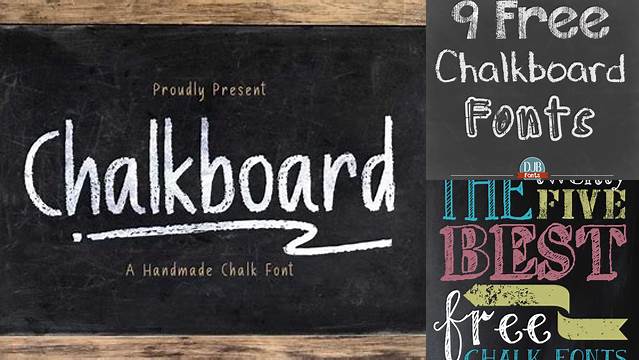
Free Chalk Fonts: Download Now!
Hey guys! Are you looking to add a touch of hand-drawn charm to your designs? Well, you've come to the right place! Chalk fonts are super popular for their whimsical and authentic feel, perfect for everything from posters and invitations to branding and website design. In this article, we're diving deep into the world of free chalk fonts, exploring where to find them, how to use them, and everything in between. So, grab a virtual piece of chalk and let's get started!
1. Best Websites to Download Free Chalk Fonts
When searching for free chalk fonts, knowing where to look can save you a ton of time and effort. Several websites specialize in offering high-quality fonts for personal and commercial use. Let's explore some of the best options out there. DaFont is a treasure trove for font lovers, featuring a vast collection of free chalk fonts and other typeface styles. The website's user-friendly interface allows you to easily browse and filter fonts based on various criteria, including style, license, and popularity. You can preview the font with your own text, making it simple to find the perfect match for your project. Many fonts on DaFont are free for personal use, but it's essential to check the license agreement before using them for commercial purposes. FontSpace is another excellent resource for discovering free chalk fonts. With a wide array of options available, you're sure to find a font that suits your creative needs. The site also features collections and categories, making it easier to navigate the extensive library. Like DaFont, FontSpace offers a mix of fonts for personal and commercial use, so always verify the licensing terms. Creative Market offers a blend of free and premium fonts, including a selection of stunning chalk-style fonts. While not everything is free, their weekly free goods section often includes high-quality fonts that you can download at no cost. This is a great way to expand your font library with professional-grade options. Google Fonts is a go-to resource for web designers and developers, offering a library of open-source fonts that are free for both personal and commercial use. While the selection of chalk fonts may be more limited compared to other sites, the fonts available are high-quality and easy to integrate into your web projects. The fonts are optimized for web use, ensuring fast loading times and consistent rendering across different browsers and devices. 1001 Fonts is another reliable source for free chalk fonts, with a diverse range of styles and designs. The site's straightforward layout makes it easy to search and preview fonts. Be sure to check the licensing details for each font, as they may vary. By exploring these websites, you'll be well-equipped to find the perfect free chalk font for your next project. Remember to always respect the font licenses and give credit to the designers when required.
3. Chalk Fonts for Personal Use
For personal projects, free chalk fonts can add a delightful touch of creativity and personality. Whether you're designing invitations, crafting handmade cards, or sprucing up your personal blog, a well-chosen chalk font can make all the difference. When using chalk fonts for personal use, you have a lot of freedom to experiment and have fun. You can use them to create eye-catching headings for your blog posts, design unique social media graphics, or even personalize gifts for friends and family. The hand-drawn aesthetic of chalk fonts adds a personal touch that can't be replicated with more formal typefaces. One popular use of chalk fonts for personal projects is in the creation of party invitations. A chalk font can make your invitations feel more casual and inviting, perfect for backyard barbecues, birthday parties, or casual get-togethers. You can pair a chalk font with rustic design elements, such as kraft paper and twine, to create a cohesive and charming look. Handmade cards are another fantastic application for free chalk fonts. Whether you're sending a thank-you note, a birthday greeting, or a message of support, a chalk font can add a personal and heartfelt touch. Consider using a chalk font for the main message and pairing it with hand-drawn illustrations or embellishments. If you have a personal blog, using a chalk font for your headings and subheadings can help create a unique and engaging visual identity. A chalk font can make your blog feel more approachable and friendly, encouraging visitors to stick around and read your content. Just be sure to use the font sparingly and pair it with a more legible body font to ensure readability. Creating personalized gifts is another wonderful way to incorporate chalk fonts into your personal projects. You can use a chalk font to create custom mugs, tote bags, or even wall art. The hand-drawn look of a chalk font adds a special touch that makes your gifts feel extra thoughtful and unique. Remember, when using free chalk fonts for personal use, you typically have a lot of flexibility. However, it's always a good idea to check the font's license agreement to ensure you're complying with the terms. Most fonts that are free for personal use will clearly state this in the license. By exploring the many creative ways you can use chalk fonts in your personal projects, you can add a touch of whimsy and charm to your everyday life.
4. Commercial Use of Free Chalk Fonts
Using free chalk fonts for commercial projects can be a fantastic way to add a unique and eye-catching element to your designs, but it's crucial to understand the licensing implications. Commercial use means using the font in any project that is intended to generate profit, such as logos, marketing materials, merchandise, or websites for businesses. Before incorporating a free chalk font into a commercial project, you must carefully review the font's license agreement. As mentioned earlier, commercial licenses often come with specific terms and restrictions, so it's essential to ensure you're in compliance. Some free chalk fonts may be offered under a commercial license at no cost, while others may require you to purchase a license or give attribution to the font designer. It's also important to check whether the license allows for modifications to the font. If you need to make changes to the font to fit your design, ensure that the license permits this. Some licenses may restrict modifications or require you to obtain permission from the designer. When using free chalk fonts for branding purposes, such as in a logo or brand identity, you need to be particularly careful. The font will become a visual representation of your brand, so it's crucial to ensure you have the right to use it commercially. Consider whether the font aligns with your brand's personality and target audience. A chalk font can be a great choice for brands that want to convey a sense of creativity, authenticity, or playfulness. Marketing materials are another common application for free chalk fonts in commercial projects. You can use a chalk font in posters, flyers, brochures, and social media graphics to add a hand-drawn touch. Just be mindful of readability, especially in smaller text sizes. Choose a chalk font that is clear and easy to read, and pair it with a more legible body font for longer blocks of text. If you're selling merchandise, such as t-shirts, mugs, or tote bags, using a chalk font can create a unique and appealing design. However, you'll need to ensure that the font license allows for use in merchandise. Some licenses may have restrictions on the number of items you can produce or the types of products you can use the font on. Using free chalk fonts on a website can add personality and charm to your online presence. However, consider the font's loading time and compatibility with different browsers and devices. Opt for web-optimized fonts and test your website on various platforms to ensure a consistent user experience. By carefully considering the licensing terms and the specific needs of your commercial project, you can confidently use free chalk fonts to create impactful designs that resonate with your audience.
5. Chalk Fonts for Logos
When it comes to logo design, the font you choose plays a crucial role in conveying your brand's personality and message. Chalk fonts can be an excellent option for logos that aim to project a sense of creativity, authenticity, or playfulness. However, using a chalk font effectively in a logo requires careful consideration and attention to detail. One of the key advantages of using a chalk font in a logo is its unique and hand-drawn aesthetic. This can help your logo stand out from the crowd and create a memorable impression. A chalk font can evoke a sense of nostalgia, craftsmanship, and personal touch, making it a great choice for brands that want to connect with their audience on an emotional level. However, not all chalk fonts are suitable for logos. Some chalk fonts may be too decorative or difficult to read, especially in smaller sizes. It's essential to choose a chalk font that is legible, versatile, and scalable. Look for fonts that have clean lines and a clear structure, even with their hand-drawn style. Consider the overall style and personality of your brand when selecting a chalk font for your logo. A chalk font might be a great fit for a coffee shop, a bakery, or a creative agency, but it may not be the best choice for a law firm or a financial institution. Think about the message you want to communicate and choose a font that aligns with your brand values. When designing a logo with a chalk font, it's important to pay attention to kerning and spacing. Kerning refers to the adjustment of the space between individual letters, while spacing refers to the overall spacing between words and lines. Proper kerning and spacing can significantly improve the readability and visual appeal of your logo. Experiment with different sizes and weights of the chalk font to see how it looks in various contexts. Your logo should be legible and impactful whether it's displayed on a business card, a website, or a large billboard. Consider using a slightly bolder weight for your chalk font to ensure it stands out, especially in smaller sizes. Pair your chalk font with other design elements, such as illustrations, icons, or colors, to create a cohesive and visually appealing logo. The font should complement the other elements of your logo, not compete with them. Think about how the chalk font will work with your brand's color palette and visual identity. Before finalizing your logo design, get feedback from others. Show your logo to potential customers, colleagues, or design professionals and ask for their opinions. Constructive feedback can help you identify any potential issues and make improvements to your logo. By carefully considering these factors, you can effectively use free chalk fonts in your logos to create a unique and memorable brand identity.
6. Chalk Fonts for Websites
Incorporating free chalk fonts into your website design can add a touch of personality and visual interest, but it's crucial to do so strategically. While chalk fonts can create a unique and engaging user experience, they're not always the best choice for every website element. When using chalk fonts on your website, readability should be your top priority. Chalk fonts often have a more textured and hand-drawn appearance, which can make them harder to read than cleaner, more traditional fonts. Consider using chalk fonts for headings, subheadings, and short bursts of text, rather than for long paragraphs of body copy. For body text, it's best to stick with a more legible font that is easy on the eyes. Choose a chalk font that is web-optimized. Web-optimized fonts are designed to load quickly and render consistently across different browsers and devices. This is essential for ensuring a positive user experience on your website. Many font websites offer web font versions of their fonts, which are specifically designed for online use. Consider the loading time of the chalk font. Some chalk fonts can be quite large in file size, which can slow down your website's loading speed. This can negatively impact your website's search engine ranking and user experience. Choose a lightweight chalk font or use a font optimization tool to reduce the file size. Ensure that the chalk font is compatible with your website's design and branding. The font should complement your website's overall aesthetic and reinforce your brand's message. Think about the colors, images, and other design elements on your website and choose a chalk font that harmonizes with them. Test the chalk font on different browsers and devices to ensure that it renders correctly. What looks great on your desktop computer might not look as good on a mobile device. Use browser testing tools or real devices to preview your website on different platforms. Use chalk fonts sparingly and strategically. Overusing chalk fonts can make your website look cluttered and unprofessional. Use them to highlight key elements, such as headings or calls to action, rather than for every piece of text on your site. Pair your chalk font with other fonts to create visual contrast and hierarchy. Using a combination of fonts can add interest to your website design and make it easier for visitors to scan and understand your content. Experiment with different font pairings to find a combination that works well together. Consider using CSS to customize the appearance of your chalk font. CSS allows you to adjust the font size, color, spacing, and other properties, giving you greater control over how the font looks on your website. By following these guidelines, you can effectively use free chalk fonts on your website to create a unique and engaging user experience without sacrificing readability or performance.
7. Chalk Fonts for Social Media Graphics
In the fast-paced world of social media, grabbing attention is key. Free chalk fonts can be a fantastic tool for creating eye-catching graphics that stand out in a crowded feed. Their hand-drawn, whimsical style can add a personal touch to your posts, making them more engaging and shareable. When using chalk fonts for social media graphics, consider the platform you're designing for. Each platform has its own optimal image sizes and aspect ratios, so it's important to tailor your graphics accordingly. For example, Instagram posts typically use a square format, while Facebook cover photos require a wider aspect ratio. Make sure your chalk font is legible and readable at the size it will be displayed on the platform. Social media graphics are often viewed on small screens, so it's crucial to choose a font that is clear and easy to read, even at a smaller size. Avoid overly decorative or intricate chalk fonts that might become illegible when scaled down. Use chalk fonts to create visually appealing headlines and captions. A well-chosen chalk font can help draw attention to your message and make your text more engaging. Experiment with different font sizes, weights, and styles to find the perfect combination for your graphic. Pair your chalk font with complementary design elements, such as illustrations, icons, or photos. Visual consistency is important for branding, so make sure the elements you choose align with your overall aesthetic and message. Consider the color palette of your social media graphics. Colors can evoke emotions and create a visual hierarchy, so it's important to choose a color scheme that complements your chalk font and overall design. Use contrasting colors to make your text stand out and ensure readability. Add a background or texture to your social media graphics to create depth and visual interest. A chalkboard texture can be a great way to reinforce the chalk font theme, but you can also experiment with other textures and patterns to create a unique look. Use chalk fonts to create a consistent visual identity across your social media profiles. Consistency helps build brand recognition and makes your content more easily identifiable. Choose a few chalk fonts that you like and use them consistently in your social media graphics. Experiment with different effects and styles to enhance the look of your chalk font. For example, you can add a drop shadow, glow, or outline to make your text pop. You can also try using different blending modes or filters to create unique effects. Test your social media graphics on different devices and platforms to ensure they look good across the board. What looks great on your computer screen might not look as good on a mobile device. By following these tips, you can effectively use free chalk fonts to create stunning social media graphics that capture attention and engage your audience.
8. Chalk Fonts for Posters
Designing a poster that grabs attention requires a careful balance of visual elements, and the font you choose plays a crucial role. Free chalk fonts can be an excellent choice for posters that aim to convey a sense of creativity, informality, or a handmade aesthetic. However, using chalk fonts effectively in poster design requires careful consideration of readability, scale, and overall visual impact. One of the key advantages of using chalk fonts for posters is their ability to create a unique and eye-catching design. The hand-drawn, textured look of chalk fonts can add a personal touch to your poster, making it stand out from the crowd. This can be particularly effective for posters advertising events, workshops, or products that emphasize creativity or craftsmanship. Readability is paramount in poster design, so choose a chalk font that is clear and easy to read, even from a distance. Avoid overly decorative or intricate chalk fonts that might become illegible when scaled up. Opt for fonts with clean lines and a clear structure, while still maintaining the charm of a chalk-like appearance. Consider the scale of your poster and the size of the text. The font size should be large enough to be easily read from a distance, but not so large that it overwhelms the other design elements. Experiment with different font sizes and weights to find the optimal balance for your poster. Use chalk fonts strategically to create a visual hierarchy in your poster design. Use a larger, bolder chalk font for the main headline or title to draw attention, and use smaller, simpler fonts for supporting text and details. This helps guide the viewer's eye and ensures that the most important information is easily visible. Choose a chalk font that complements the overall style and message of your poster. Think about the event or product you're advertising and choose a font that aligns with its tone and personality. A playful chalk font might be a good choice for a children's event, while a more sophisticated chalk font might be better suited for a concert or art exhibition. Use color effectively to enhance the impact of your chalk font. Contrasting colors can make your text stand out and create visual interest. Consider using a light-colored chalk font on a dark background, or vice versa, to maximize readability. Add visual elements, such as illustrations, photos, or textures, to complement your chalk font and create a cohesive design. These elements should enhance the message of your poster without distracting from the text. Test your poster design by printing it out at different sizes and viewing it from a distance. This will help you identify any potential readability issues or design flaws before you finalize your poster. By following these guidelines, you can effectively use free chalk fonts in your poster designs to create eye-catching and informative visuals that capture attention and convey your message.
9. Chalk Fonts for Invitations
Creating invitations that reflect the tone and style of your event is crucial, and the font you choose plays a significant role. Free chalk fonts can add a touch of whimsy, informality, and handmade charm to your invitations, making them perfect for a variety of occasions. Whether you're planning a casual get-together, a rustic wedding, or a fun-filled birthday party, a chalk font can help set the right mood. When using chalk fonts for invitations, consider the overall aesthetic you're aiming for. Chalk fonts often evoke a sense of nostalgia, creativity, and personal touch, so they're well-suited for events that have a relaxed and informal atmosphere. If you're planning a formal event, a chalk font might not be the best choice, as it can come across as too casual. Readability is key when designing invitations, so choose a chalk font that is clear and easy to read. Avoid overly decorative or intricate fonts that might become illegible, especially in smaller sizes. Opt for fonts with clean lines and a clear structure, while still maintaining the charm of a chalk-like appearance. Consider the size of your invitation and the amount of text you need to include. If you have a lot of information to convey, choose a more legible chalk font and use a larger font size. You can also break up the text into smaller chunks and use different font styles to create a visual hierarchy. Use chalk fonts strategically to highlight key information on your invitation, such as the event date, time, and location. You can use a larger, bolder chalk font for these details to draw attention to them, while using a smaller, simpler font for other information. Choose a color palette that complements your chalk font and overall invitation design. Chalk fonts often look great in white or light colors on a dark background, as this mimics the look of chalk on a chalkboard. However, you can also experiment with other color combinations to create a unique look. Add visual elements, such as illustrations, graphics, or textures, to enhance the design of your invitation. These elements should complement your chalk font and the overall theme of your event. Consider using a chalkboard texture or a hand-drawn illustration to reinforce the chalk font aesthetic. Pair your chalk font with other fonts to create visual contrast and interest. Using a combination of fonts can add depth to your design and make your invitation more visually appealing. Try pairing a chalk font with a simpler, more legible font for the body text. Test your invitation design by printing it out or viewing it on different devices. This will help you identify any potential readability issues or design flaws before you send out your invitations. By following these guidelines, you can effectively use free chalk fonts for invitations to create charming and memorable designs that set the perfect tone for your event.
13. Chalkboard Backgrounds and Textures
To truly capture the authentic feel of chalk art, pairing your free chalk font with a chalkboard background or texture is a fantastic idea. These backgrounds and textures can add depth and realism to your designs, making them feel like they were actually created on a chalkboard. There are numerous resources online where you can find free chalkboard backgrounds and textures. Websites that offer stock photos, textures, and design resources often have a selection of chalkboard images that you can use in your projects. When choosing a chalkboard background or texture, consider the style and mood you're trying to convey. A dark, heavily textured chalkboard can create a rustic and vintage feel, while a cleaner, lighter chalkboard can give a more modern and minimalist look. Think about how the background will complement your chalk font and other design elements. One popular way to use chalkboard backgrounds is to overlay your chalk font text onto the background using design software like Photoshop or GIMP. This creates the illusion that the text is actually written on the chalkboard. You can adjust the blending mode and opacity of the text layer to achieve different effects. For example, using a